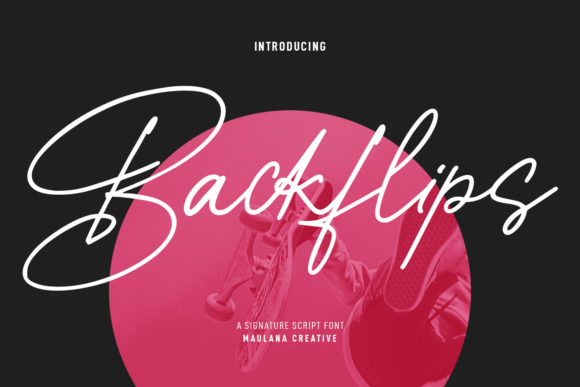
Step into the world of elegance and creativity with Backflips, a script font that dances across your designs like a graceful ballerina. Its enchanting strokes, adorned with delicate curves and whimsical flourishes, will cast a spell on your projects, transforming them into masterpieces of typographic art.
Crafted by the visionary minds at Maulana Creative, Backflips is not just a font; it's an invitation to unleash your imagination and let your designs soar. Its versatility knows no bounds, making it the perfect companion for a myriad of creative endeavors. From enchanting wedding invitations that whisper of romance to eye-catching logos that demand attention, Backflips has the power to elevate your designs to new heights.
But what truly sets Backflips apart is its undeniable charm. Its medium contrast strokes create a captivating visual rhythm, while its playful ligatures and alternates add a touch of whimsy and individuality to your creations. Each letter is a work of art, meticulously crafted to evoke a sense of luxury and sophistication.
Whether you're a seasoned designer seeking the perfect finishing touch or a creative enthusiast looking to make a statement, Backflips is the font you've been waiting for. Its versatility and timeless appeal make it an essential addition to your typographic toolkit.